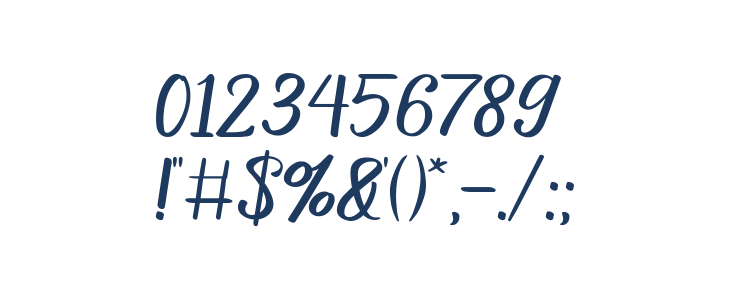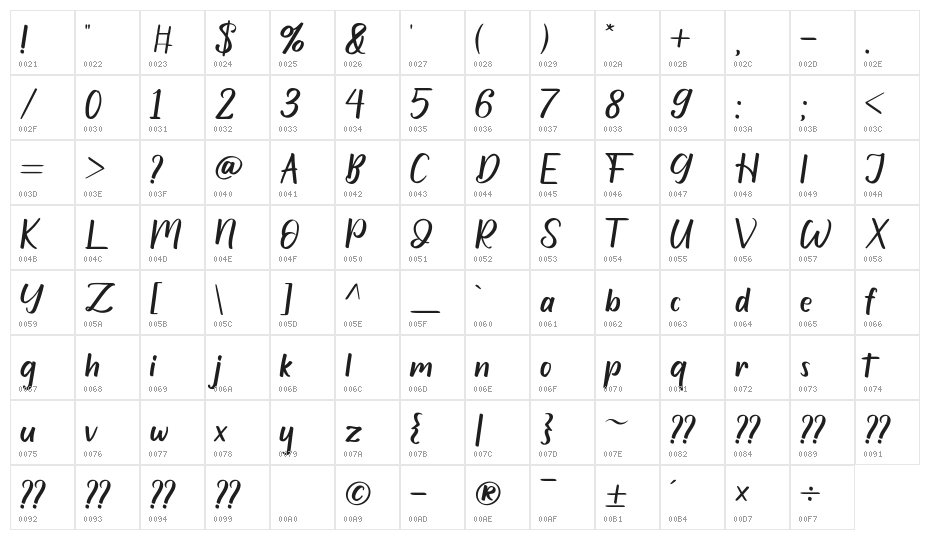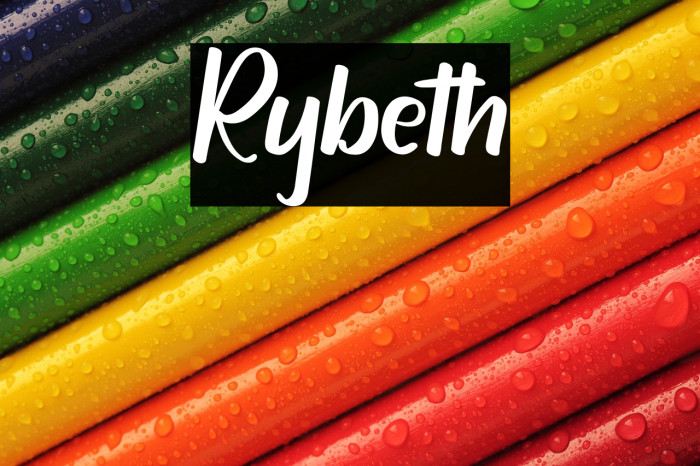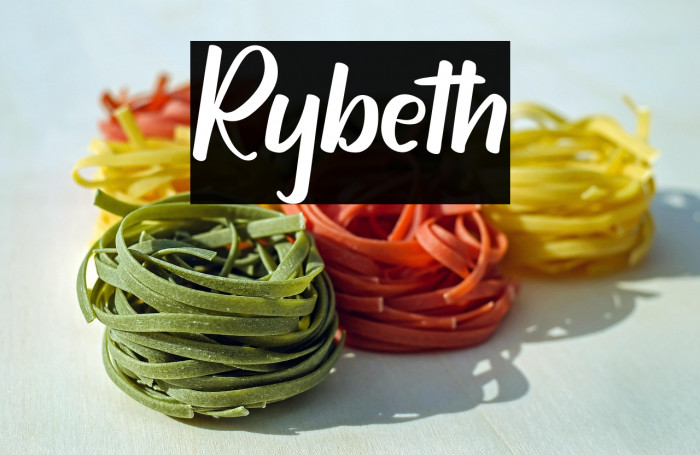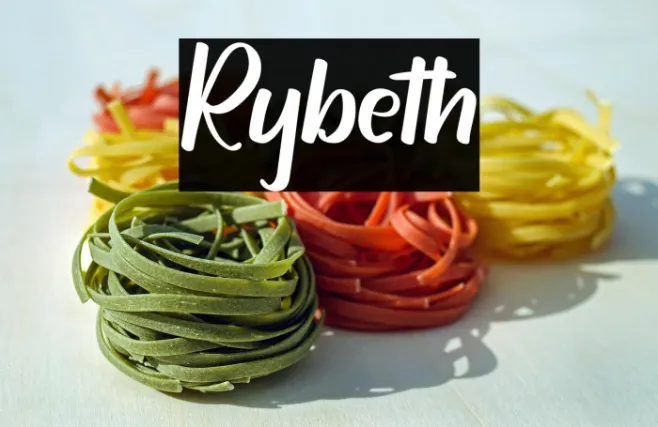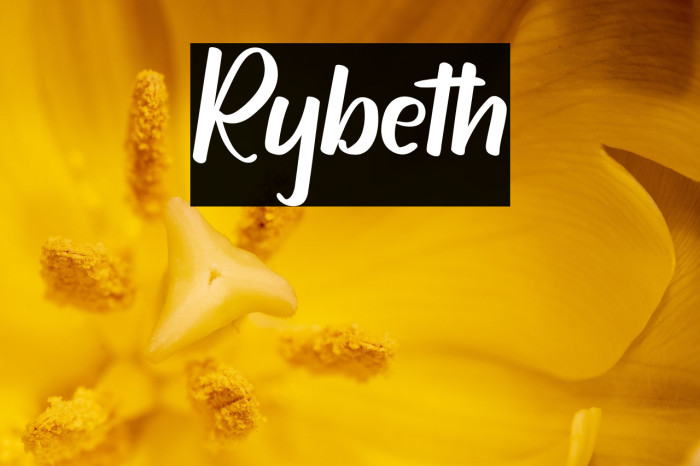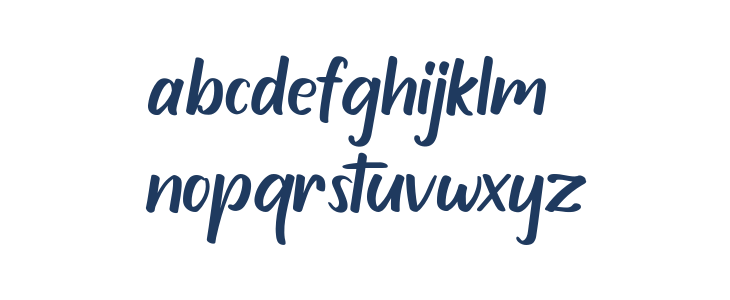
Rybeth Font
Rybeth Description
This font features a playful and energetic script style with a handwritten appearance. The letters are connected in a fluid manner, giving it a casual and friendly vibe. The uppercase letters have a slightly exaggerated height, while the lowercase letters maintain a consistent baseline, adding to the font's readability. The numbers and special characters are designed to match the overall style, with smooth curves and a consistent stroke width. This font is ideal for projects that require a personal touch, such as invitations, greeting cards, or branding materials.